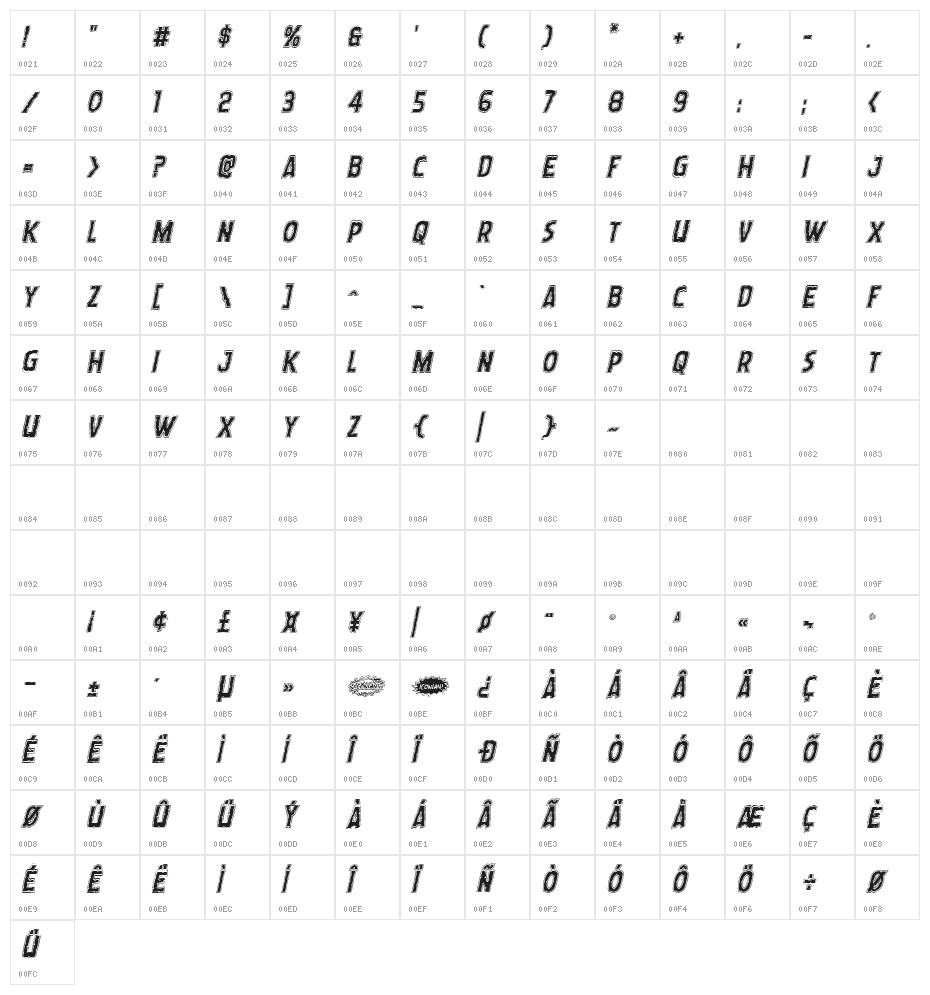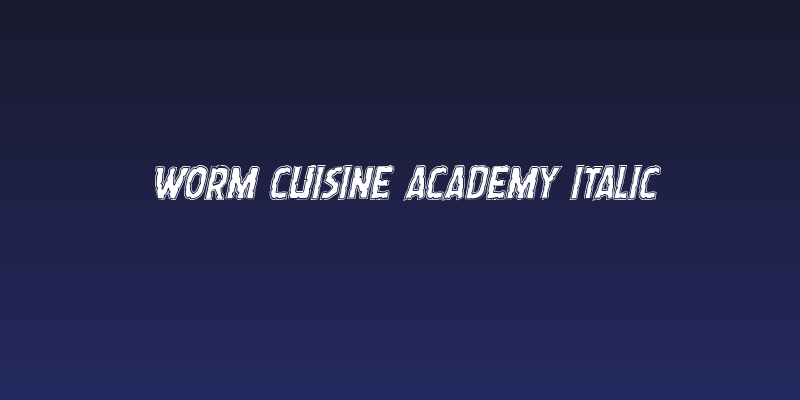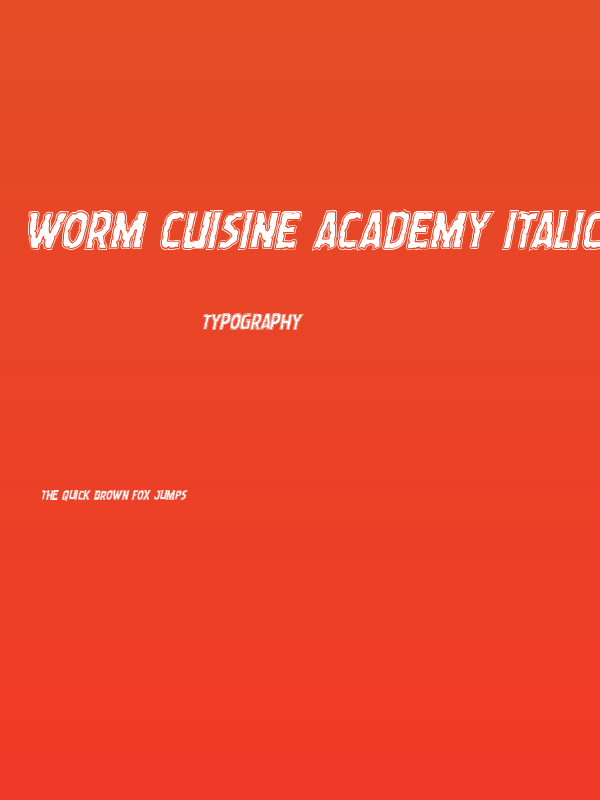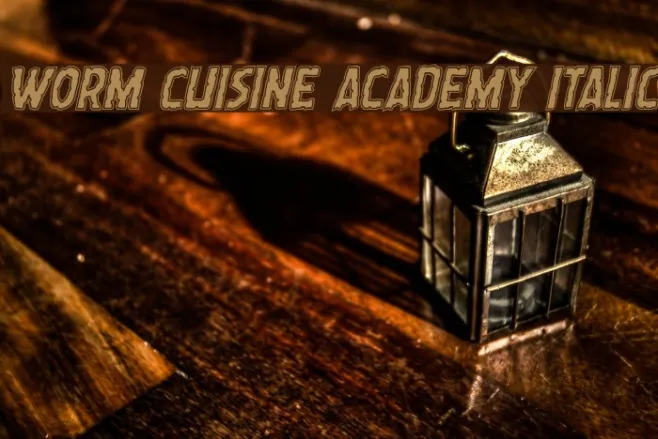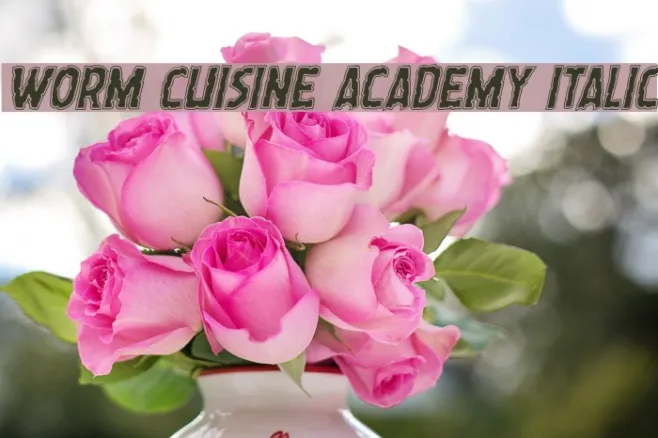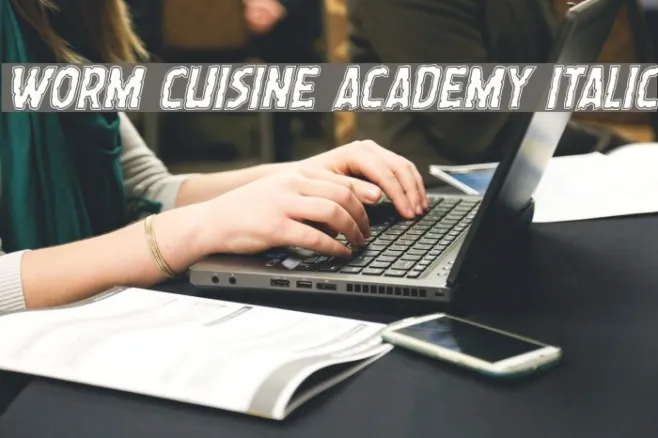
Worm Cuisine Academy Italic Font
Worm Cuisine Academy Italic Description
This font features a bold and dynamic style with a distressed, textured appearance. The characters are outlined with a thick, uneven stroke that gives them a rugged and edgy look. The uppercase and lowercase letters maintain a consistent style, with sharp angles and a slightly italicized slant, adding a sense of movement and energy. The numerals and special characters follow the same design principles, ensuring uniformity across all glyphs. This font's unique aesthetic makes it stand out, perfect for projects that require a bold statement.